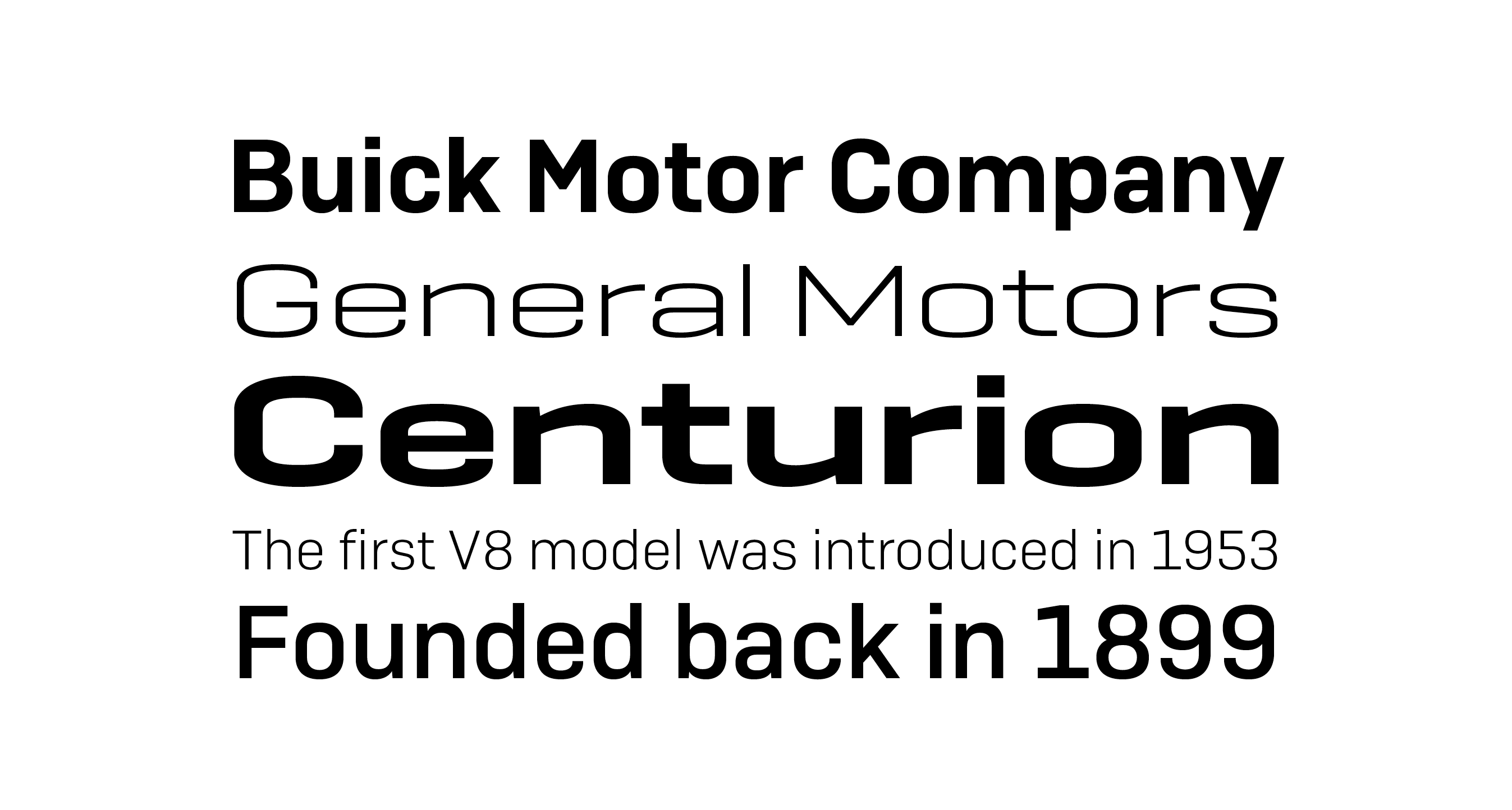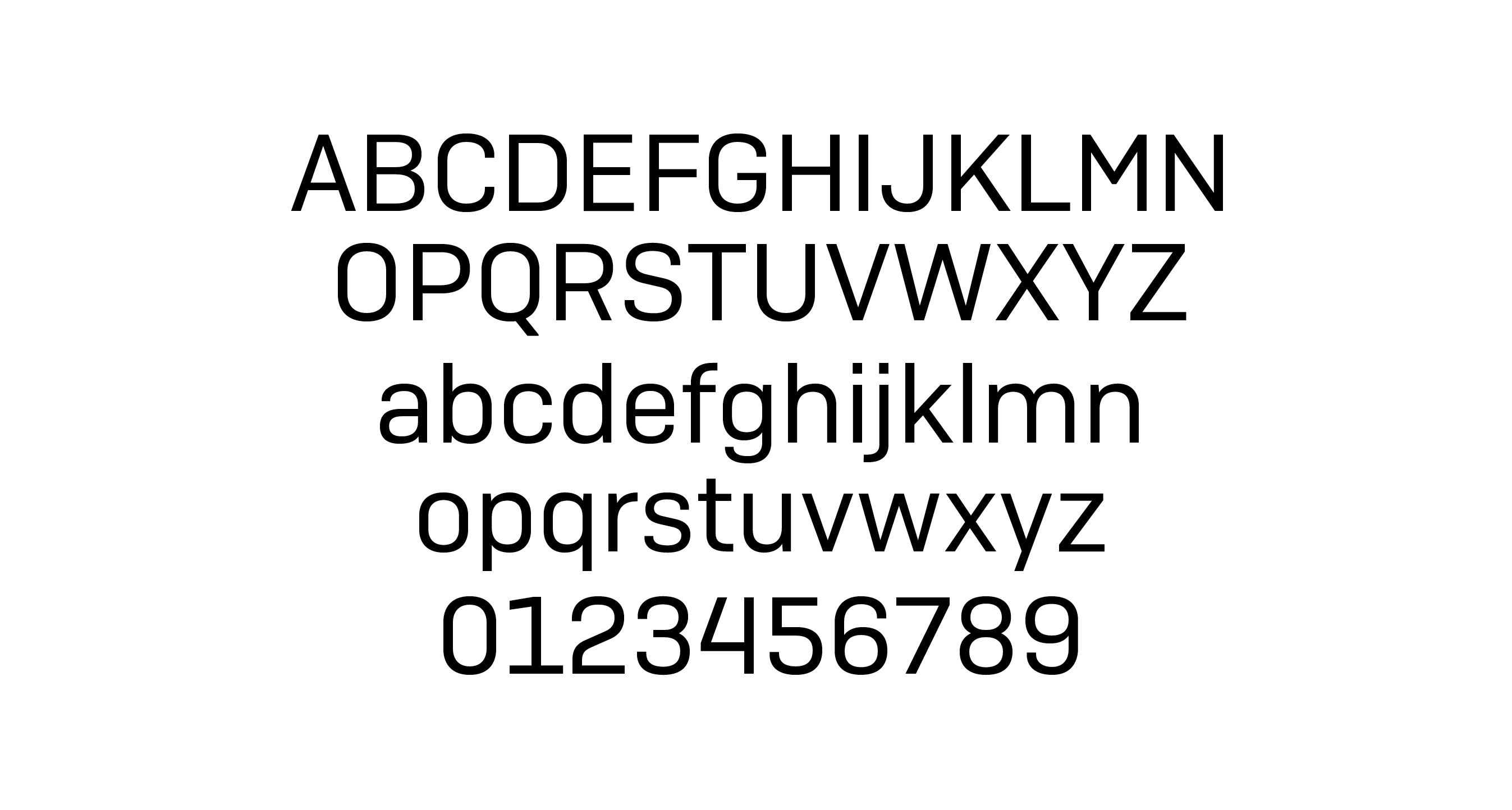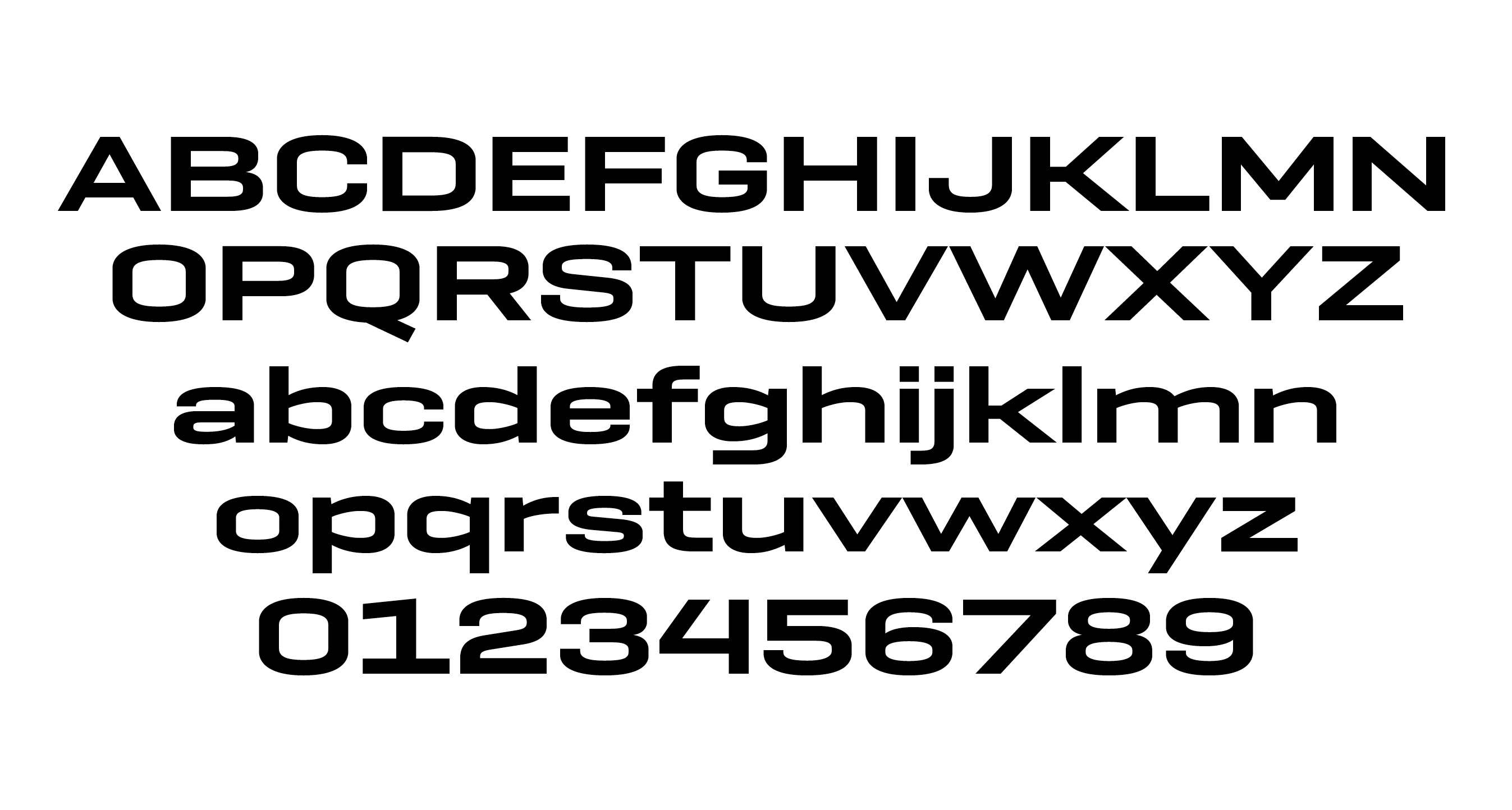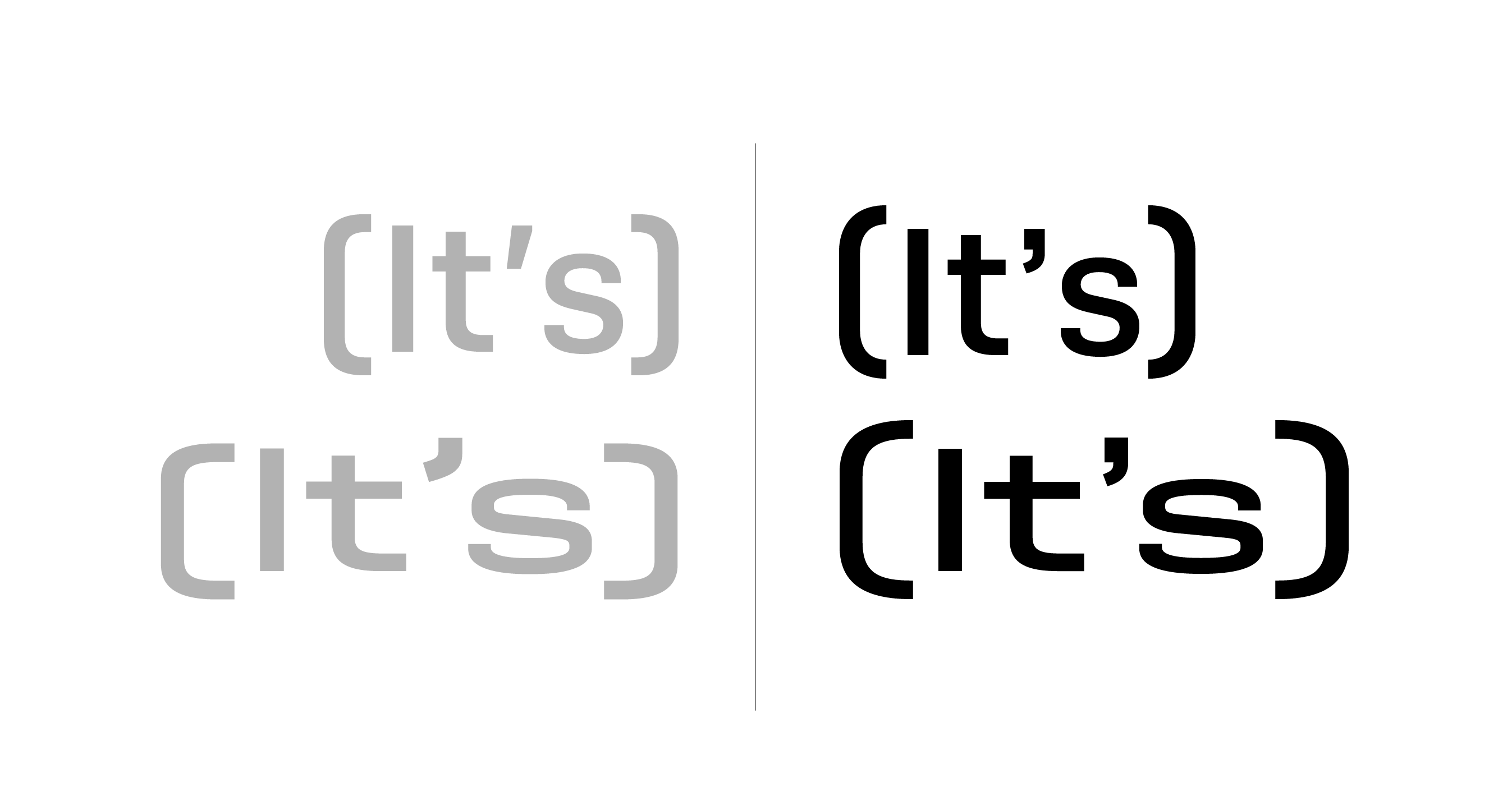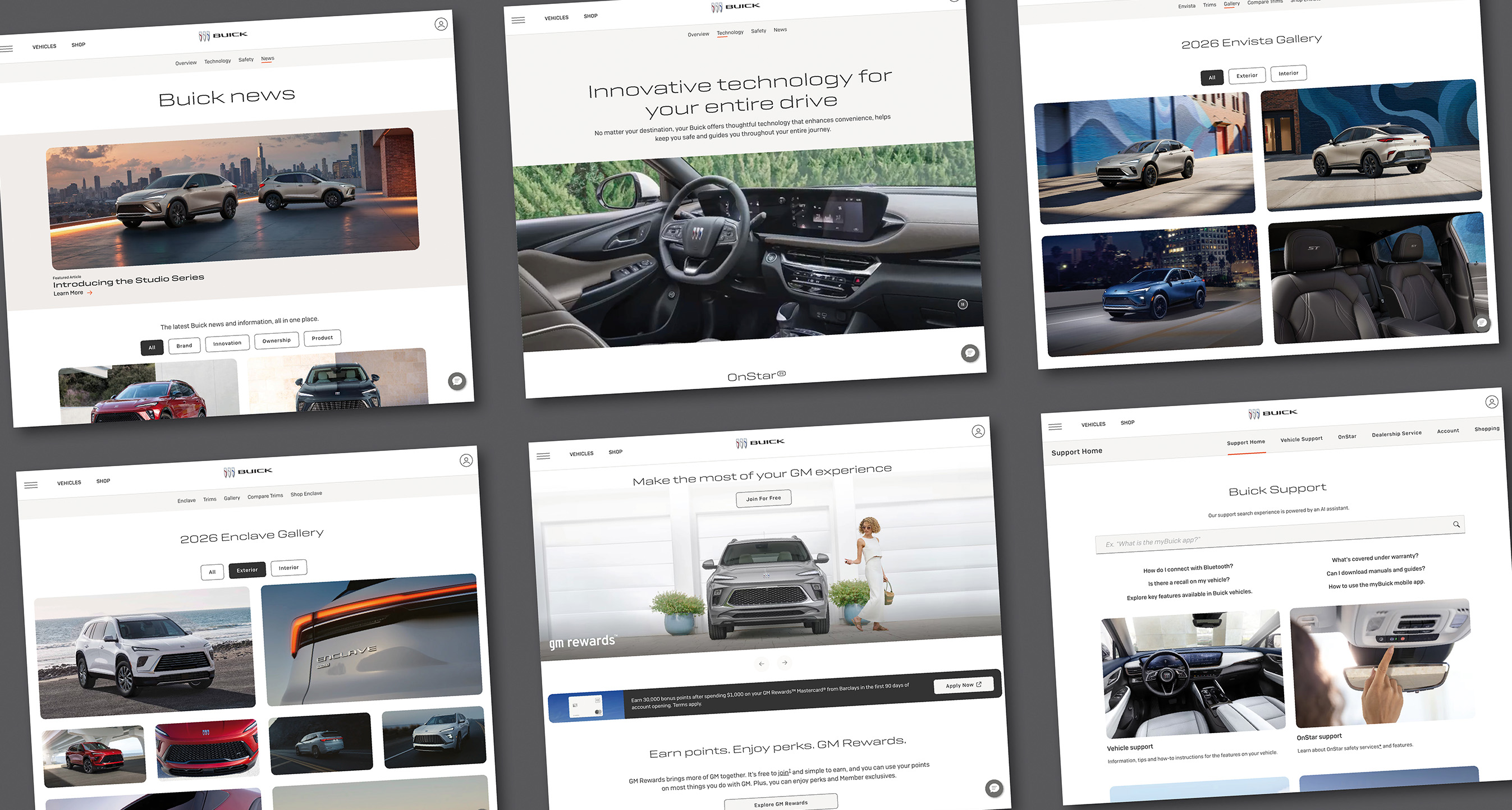
Buick Custom Type Family
In 2022, Simon Fairweather at Leo Burnett contacted us to develop a custom type family for Buick, General Motors’ premium automotive brand. Geogrotesque Sharp was chosen as the typeface best suited to the brand. However, to meet all of Buick’s needs, a complementary text face was also required, since Sharp is slightly too angular for extended reading. We therefore turned to Camber, another of our typefaces, which shares a similar spirit with Geogrotesque but has a softer, less angular character. Both Geogrotesque and Camber share common origins, as well as a similar concept and structure. If not sisters, they could certainly be considered cousins. We then developed the new family as a whole, customising details in each typeface and dividing the styles into Headline and Text. The resulting font family gives Buick’s overall communication a modern and harmonious voice.